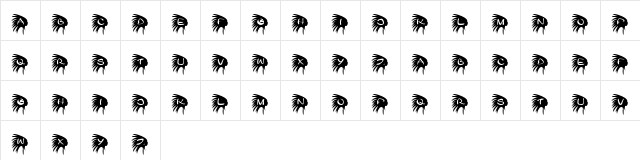
KR Native Regular
Design Context for KR Native Typeface
KR Native is a composed and adaptable typeface that performs quietly and consistently across a wide range of design contexts.